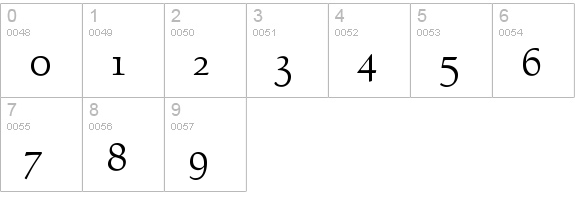
Village-Roman Font Details
Village-Roman is a beautifully crafted font that exudes a rustic charm, reminiscent of quaint villages nestled amidst rolling hills. This font is perfect for adding a touch of nostalgia and warmth to your design projects. With its clean lines and classic appeal, Village-Roman is sure to make a lasting impression. Whether you're working on a vintage-inspired branding project, designing invitations for a rustic wedding, or creating eye-catching posters for a countryside event, this font will effortlessly elevate your creations. What makes Village-Roman even more appealing is that it is freely available to download at FontsMarket.com. Yes, you read that right - this stunning font can be yours without any cost. FontsMarket.com is committed to providing high-quality fonts to designers, and Village-Roman is no exception. It's a font that not only looks amazing but also offers incredible value. So why wait? Embrace the charm of Village-Roman and bring your designs to life. Download it for free at FontsMarket.com and let your creativity soar. Whether you're a professional designer or an aspiring artist, this font is a must-have in your collection. Don't miss out on the opportunity to add a touch of rustic elegance to your projects with Village-Roman.